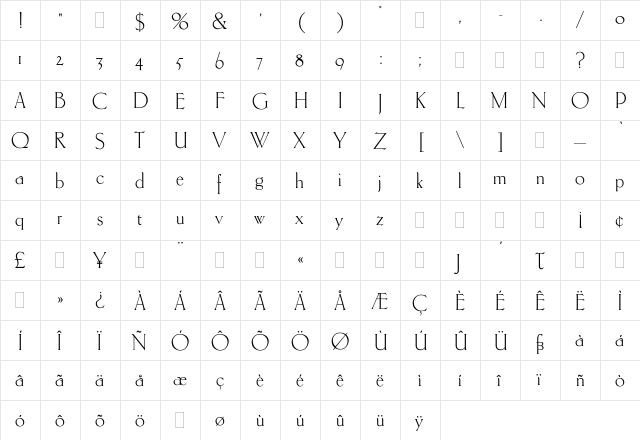
CarltonPlain Regular
Design Context for CarltonPlain Typeface
CarltonPlain takes a measured approach to typography — its balanced proportions and neutral character make it a reliable workhorse for both digital and print work.